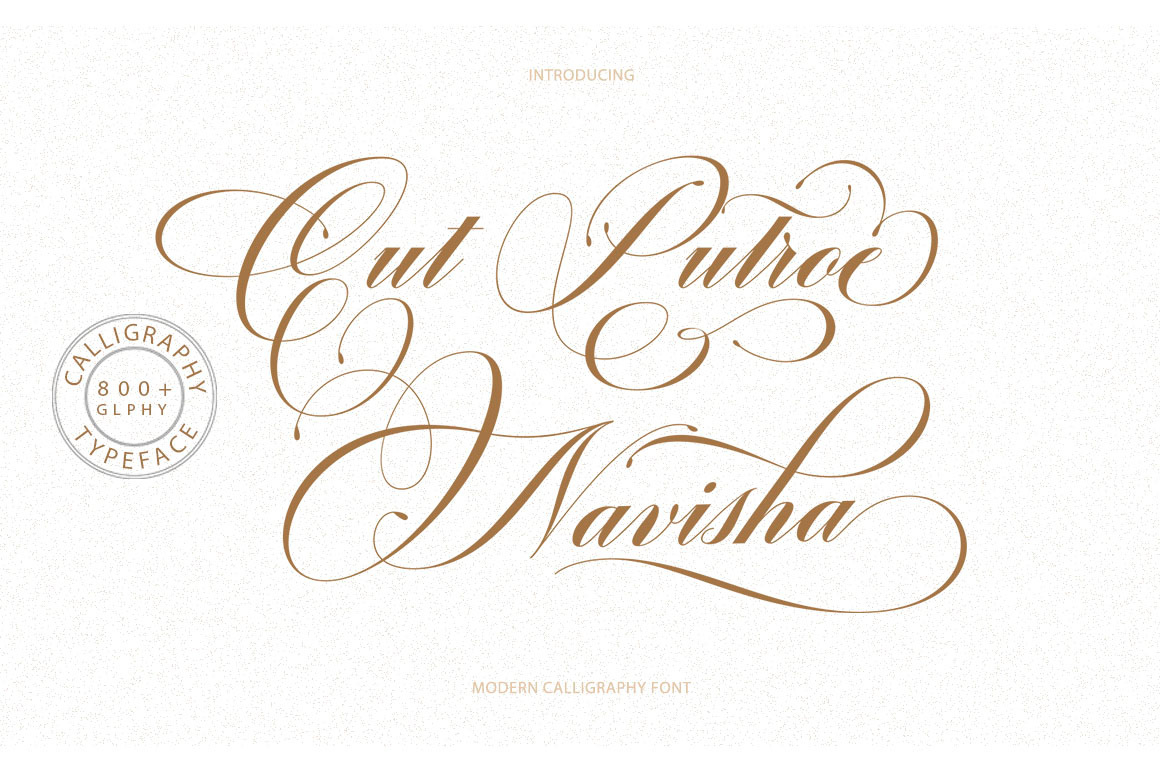
Cut Putroe Navisha
Cut Putroe Navisha is a font family published by Typehill.
Cut Putroe Navisha is a calligraphy script font that comes with beautiful alternative characters. a mixture of copper calligraphy with handleting style. Designed to bring style elegance. Cut Putroe Navisha attracts such a subtle, clean, feminine, sensual, glamorous, simple and very readable typeface. The classic style is perfect to apply in various formal forms such as invitations, labels, menus, Logos, fashion, make up, stationery, letterpress, romantic novels, magazines, books, greeting / wedding cards, packaging, labels.
Cut Putroe Navisha has 800 glyphs. including multiple language support. With OpenType features with stylish alternatives, ligatures and characters, allowing you to mix and match pairs of letters to fit your design, as well as a touch of ornament to make this font look elegant.